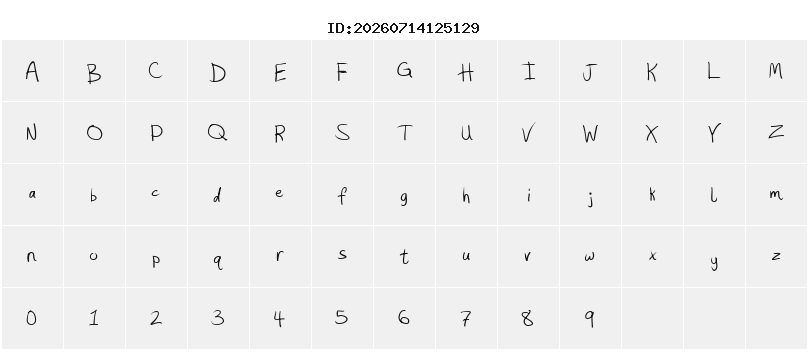
• Font Name: Hashtag
• Designer: TitanVex
About Hashtag.ttf
Hashtag.ttf is a modern, elegant sans-serif font designed for ultimate readability and visual harmony. Perfect for branding, headlines, web design, and print materials.